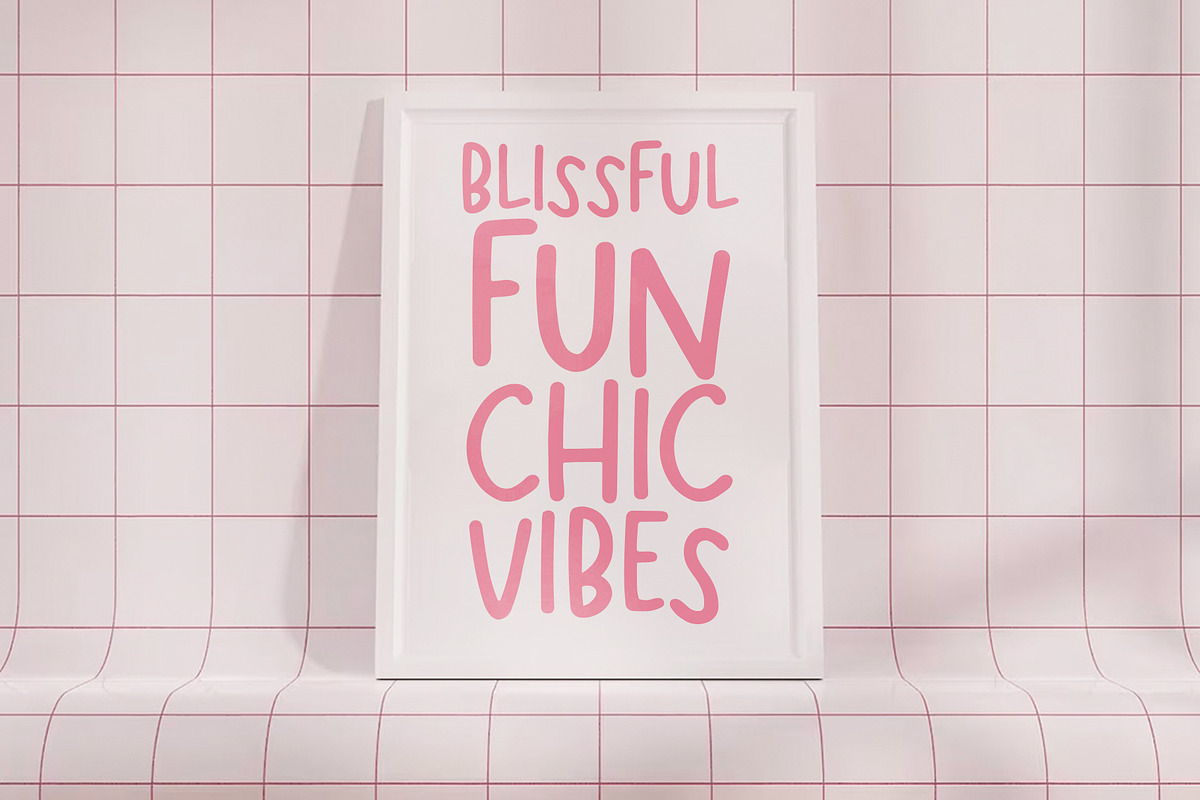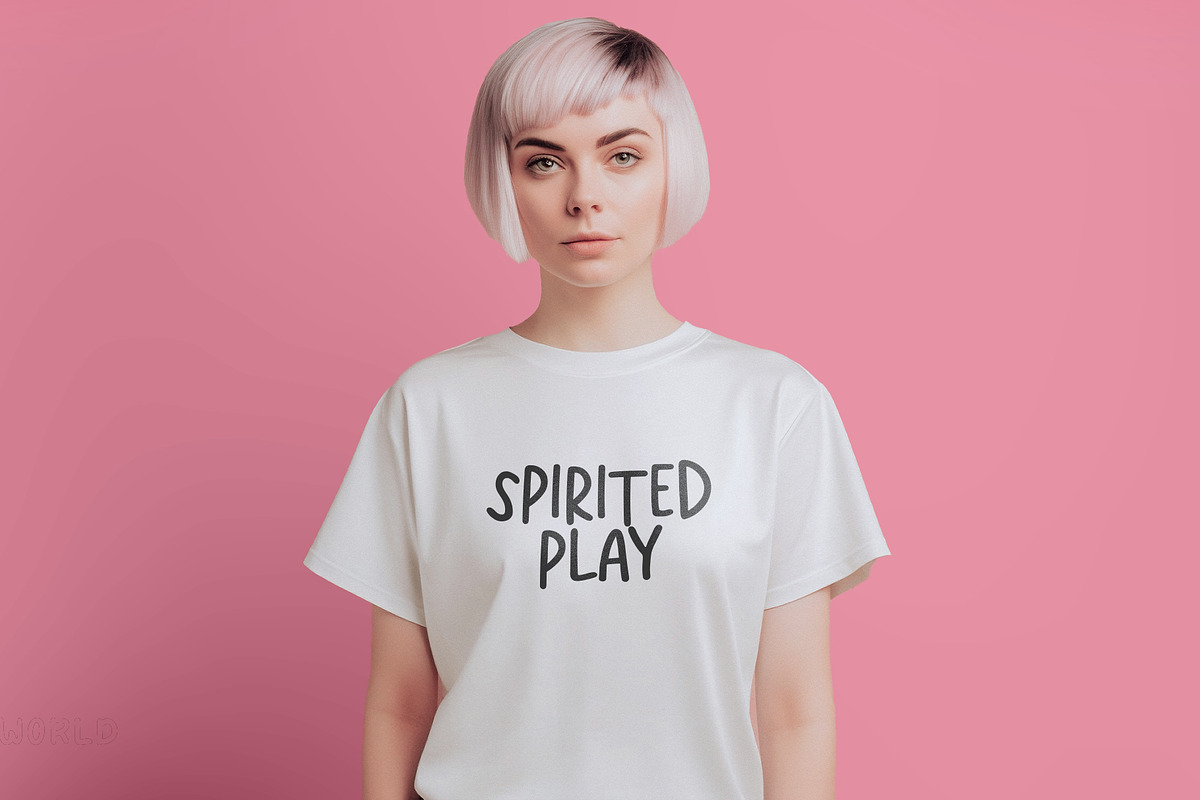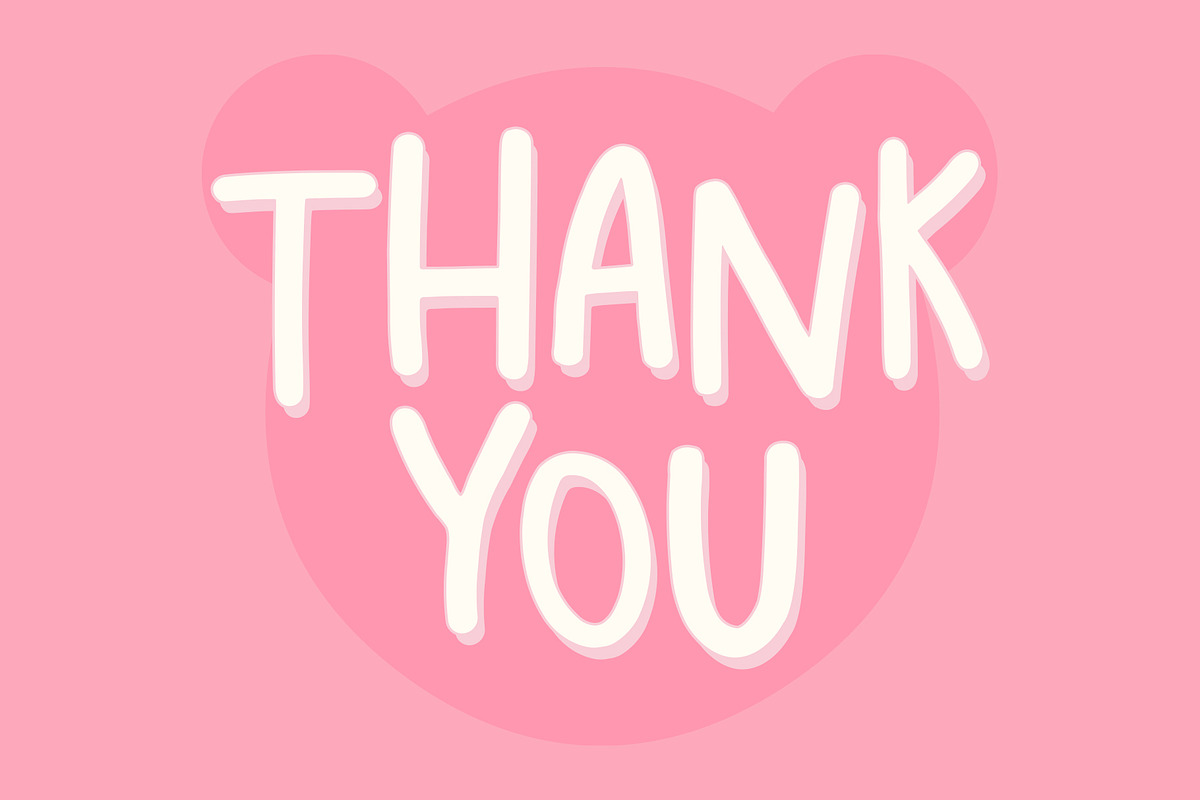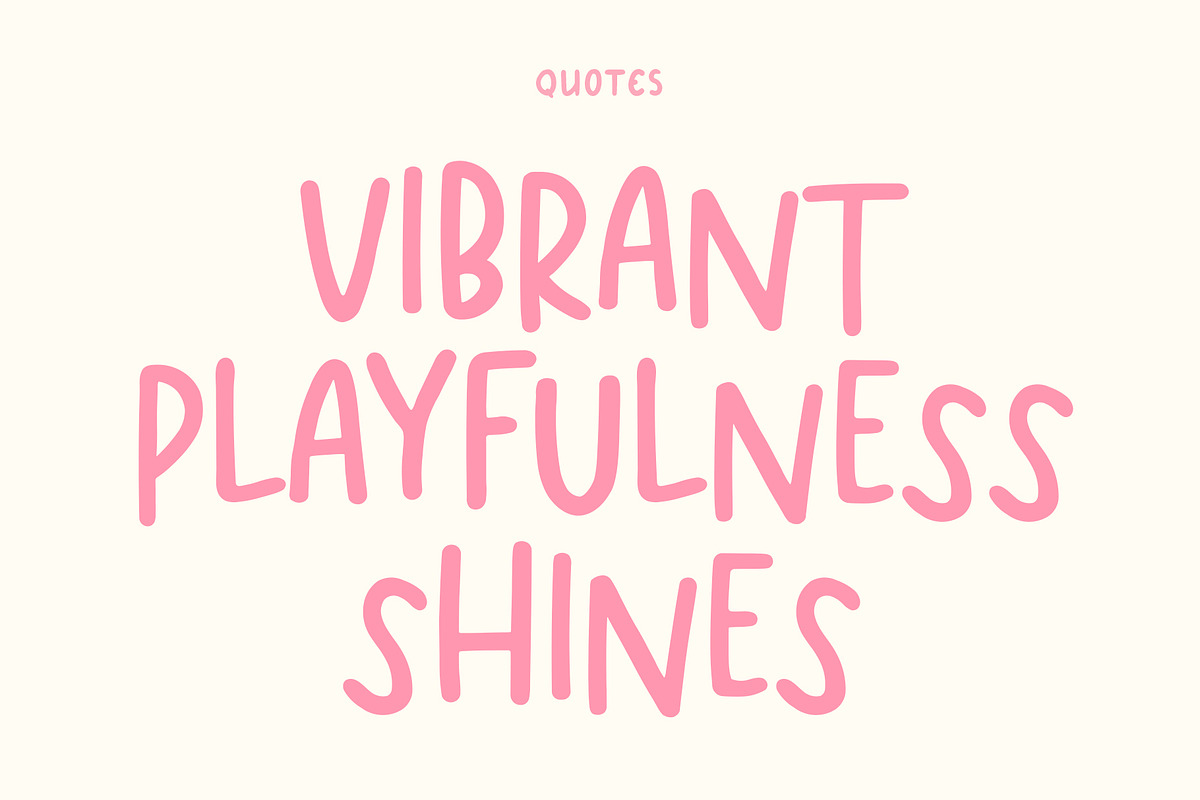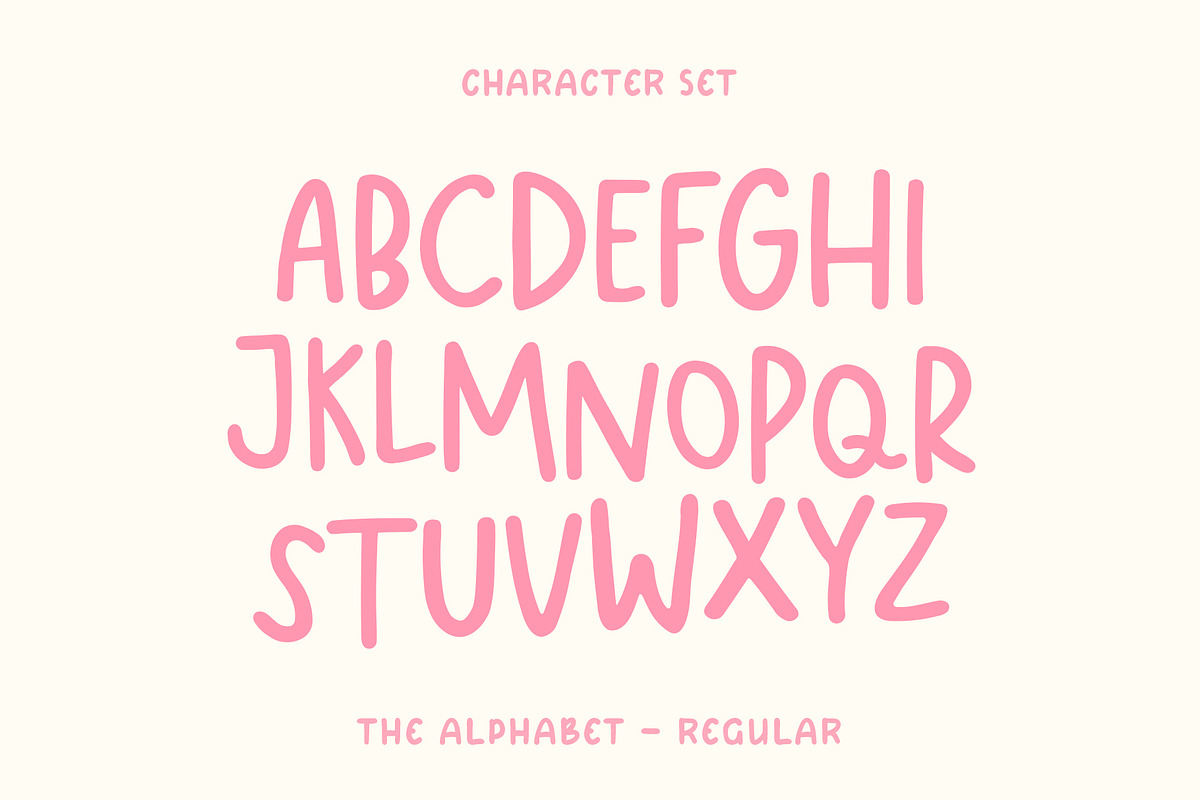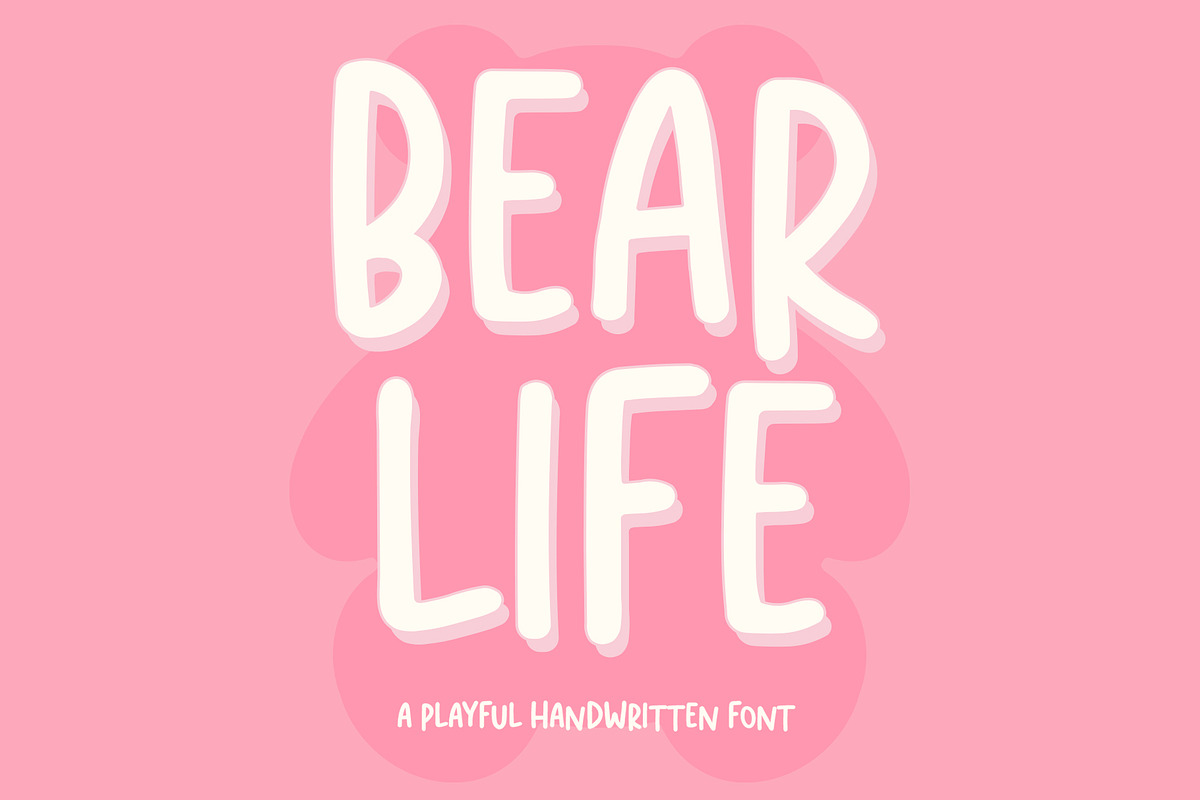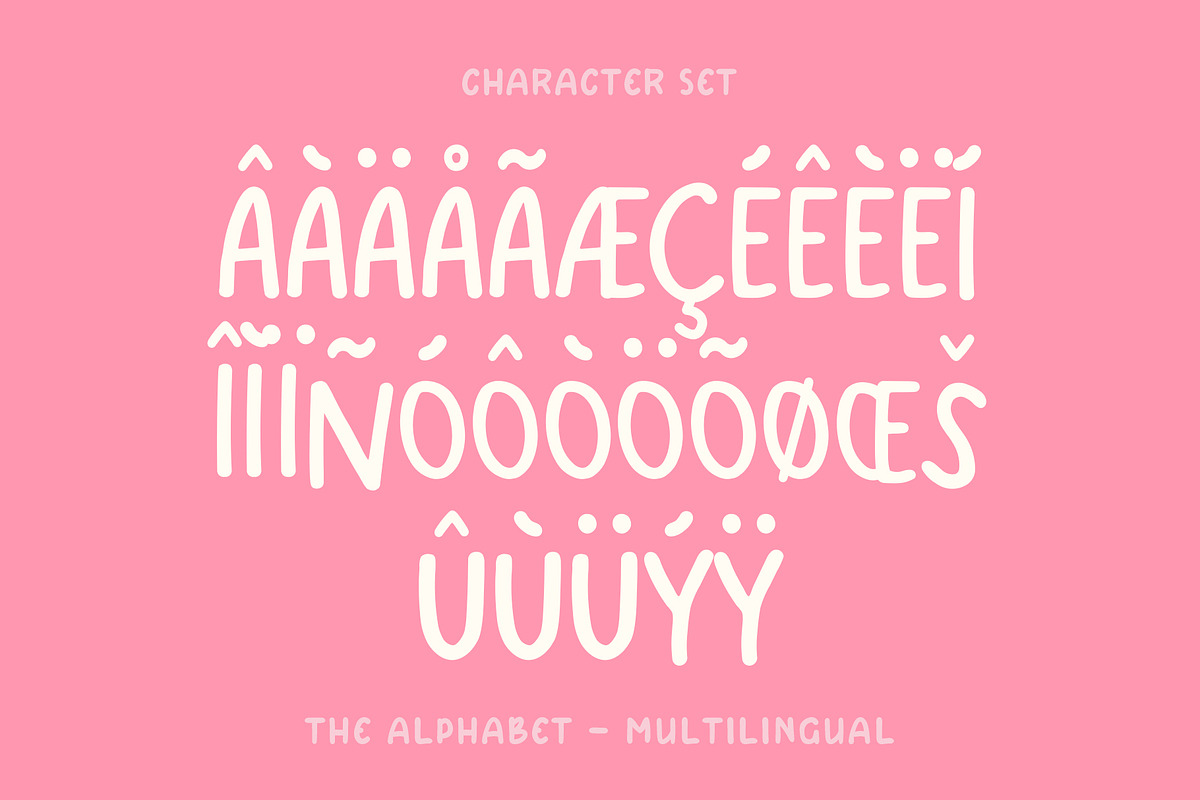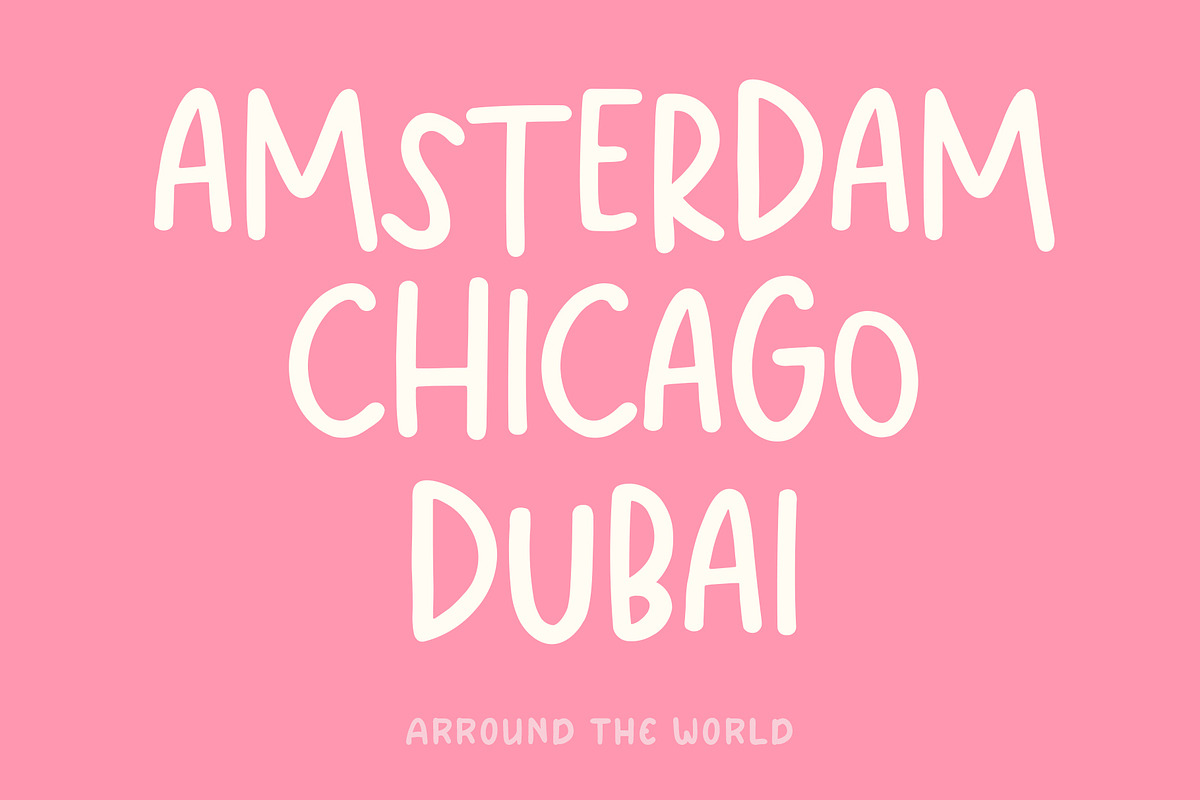
Bear Life - Handwritten Sans Serif
Bear Life is a charming and playful handwritten sans-serif font style that captures the essence of a whimsical handwritten note. Its fluid strokes and quirky character shapes add a friendly and approachable touch to any design project.
The Bear Life font family includes uppercase and lowercase letters, numbers, punctuation marks, and special characters. The font comes in a range of weights and styles, making it versatile for a variety of design projects, from greeting cards to branding and packaging designs. With its unique charm and versatility, Bear Life is a font that is sure to bring warmth and personality to any project.